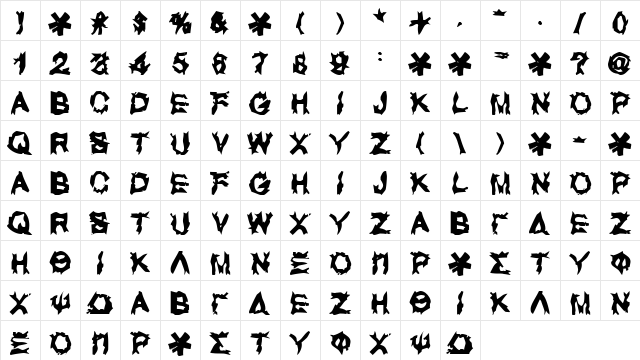
UGLY LOVER Regular
Version: Displays greek alphabet as well.
Design Context for UGLY LOVER
UGLY LOVER is a composed and adaptable typeface that performs quietly and consistently across a wide range of design contexts.